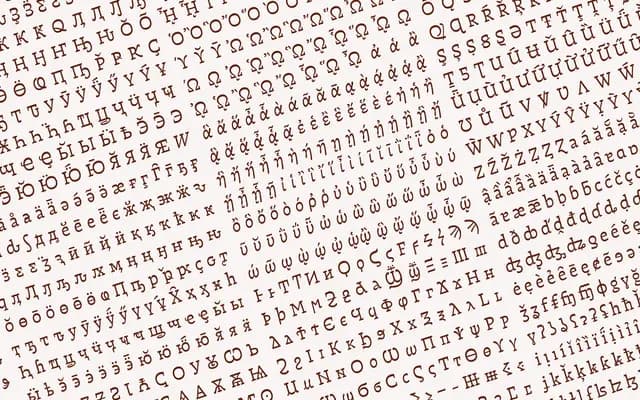
Otta Arabic
Pampatype · Francisco Gálvez Pizarro · 2015
A hand-drawn, humanist multi-script family by Francisco Gálvez Pizarro, designed to harmonise Arabic and Latin on the same page through shared horizontal contrast.
Originally designed to typeset Gálvez Pizarro's own book on typography, Otta Arabic draws on calligraphic tradition to create an organic rhythm suited to continuous reading. The family spans seven styles from Light to Display Black, covering Arabic (with Persian, Urdu and ligatures) alongside an unusually complete Latin that extends to IPA, Pan-African scripts, Pinyin and Vietnamese. Horizontal contrast, a feature native to both Arabic and Greek writing traditions, ties the scripts together into a coherent visual system.
Otta Arabic is a humanist multi-script family with calligraphic roots, designed around horizontal contrast — a tradition shared by Arabic and Greek scripts. The hand-drawn quality and organic rhythm place it firmly in the humanist category.